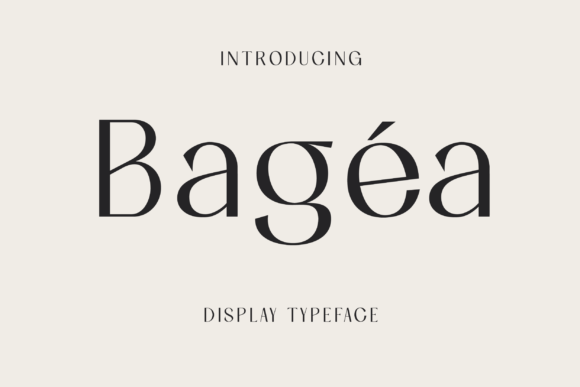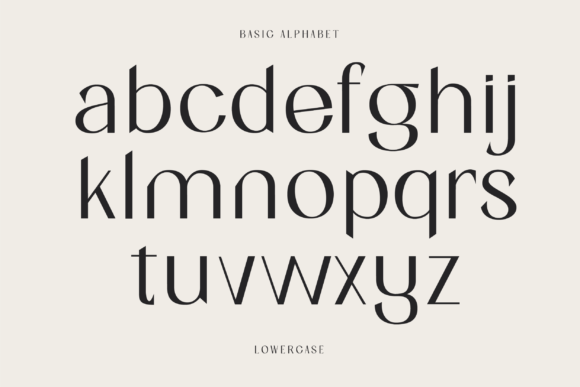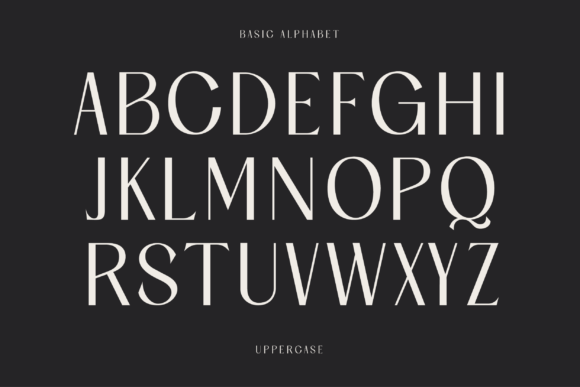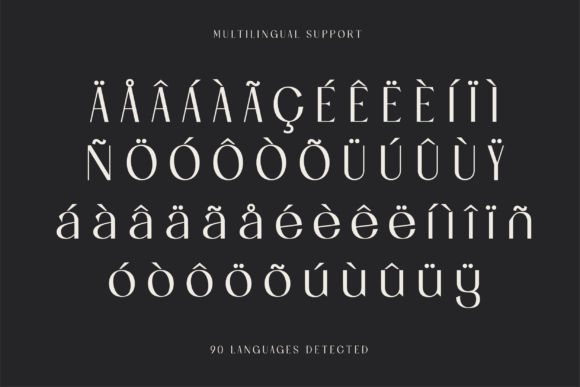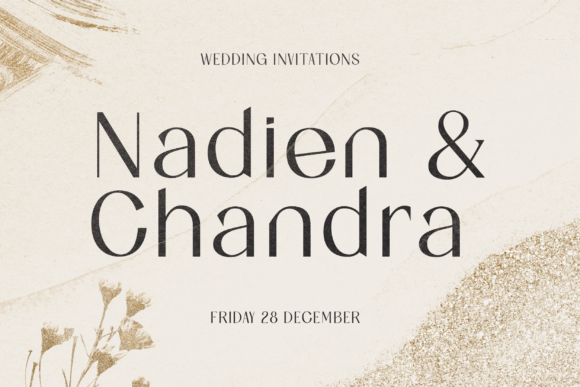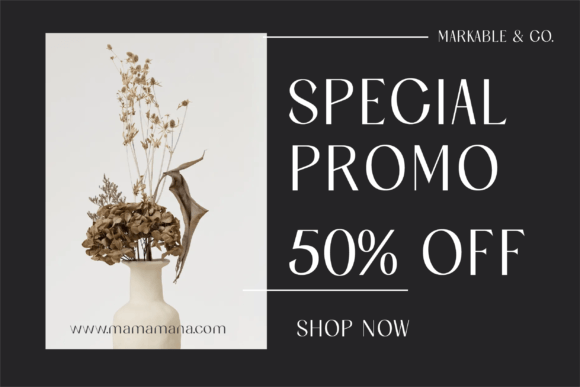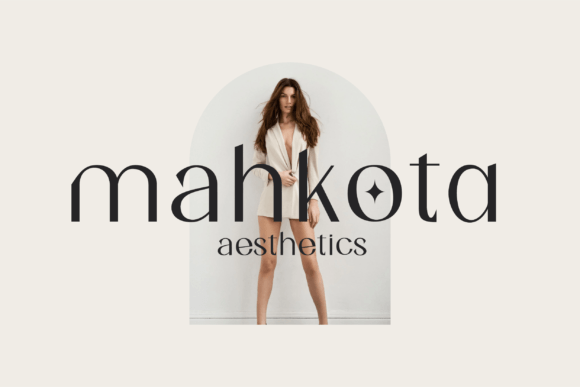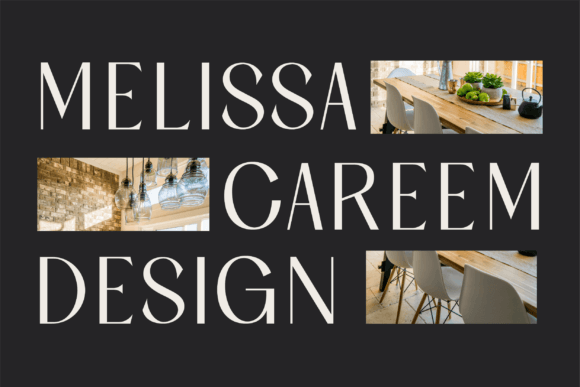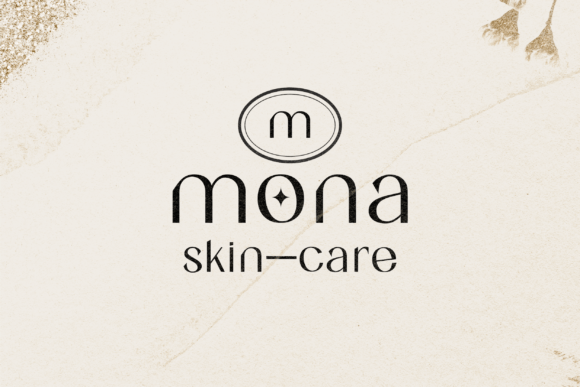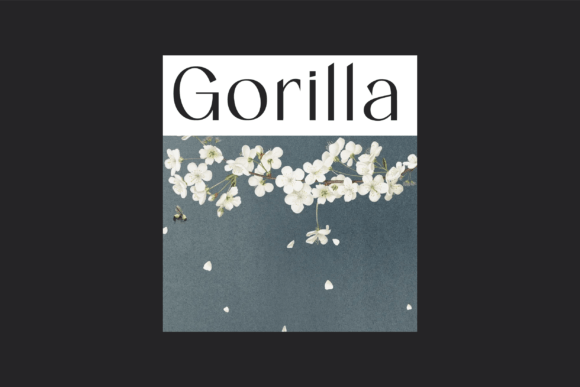
BAGEA FONT SPECIMEN
Bagea is a slab serif font with a sleek, yet simplistic design; it stands out boldly against anything you can throw at it. Perfect for use in movie titles, album art, fashion designs, and more!
Bagea is legible from much larger distances than typical fonts
Elegant letterforms give the feeling of luxury
Smooth curves for elegant typography